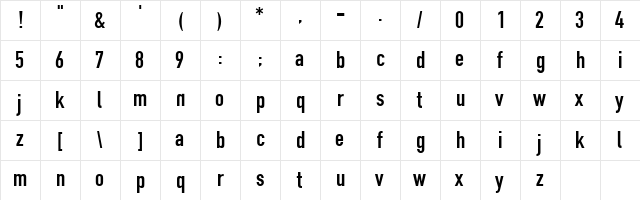
Reznor Downward Spiral
Design Context for Reznor Typeface
Reznor takes a measured approach to typography — its balanced proportions and neutral character make it a reliable workhorse for both digital and print work.